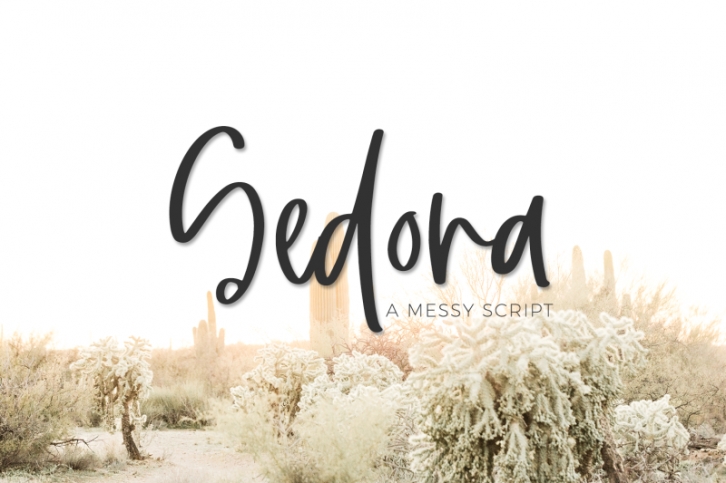
Introducing Sedona, a handwritten signature style script with alternates and ligatures.
Sedona is best for:
- logos + branding
- website design + website accents - think travel blogs, fashion blogs, & more
- clean print design, like magazines + flyers
- header elements that need handwritten touch
- quote graphics for social media
Sedona includes:
- full upper + lowercase characters
- numbers + punctuation
- Western European Language Support
- 26 lowercase alternate characters
- 9 ligatures - at, bb, gg, ll, oo, rr, ss, th, tt